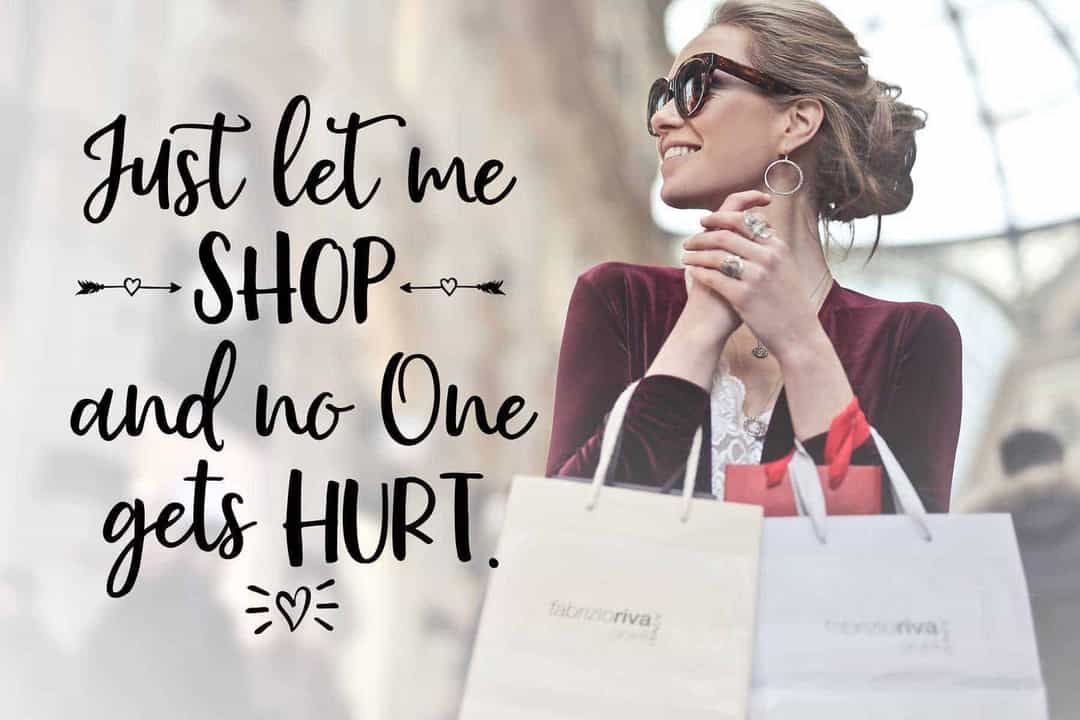
Monstterday – Brush font Have you seen Monstterday brush font by Fargun Studio? This one’s perfect to spice up any class! The grey font that combines copperplate script with a thick line, a free-flowing baseline motion and a bouncy baseline is perfect for making Monstterday, an elegant and yet timeless font that can be effective for logos, title, signatures on wedding invites t- shirts, letterheads, signages,news labels badges and more.